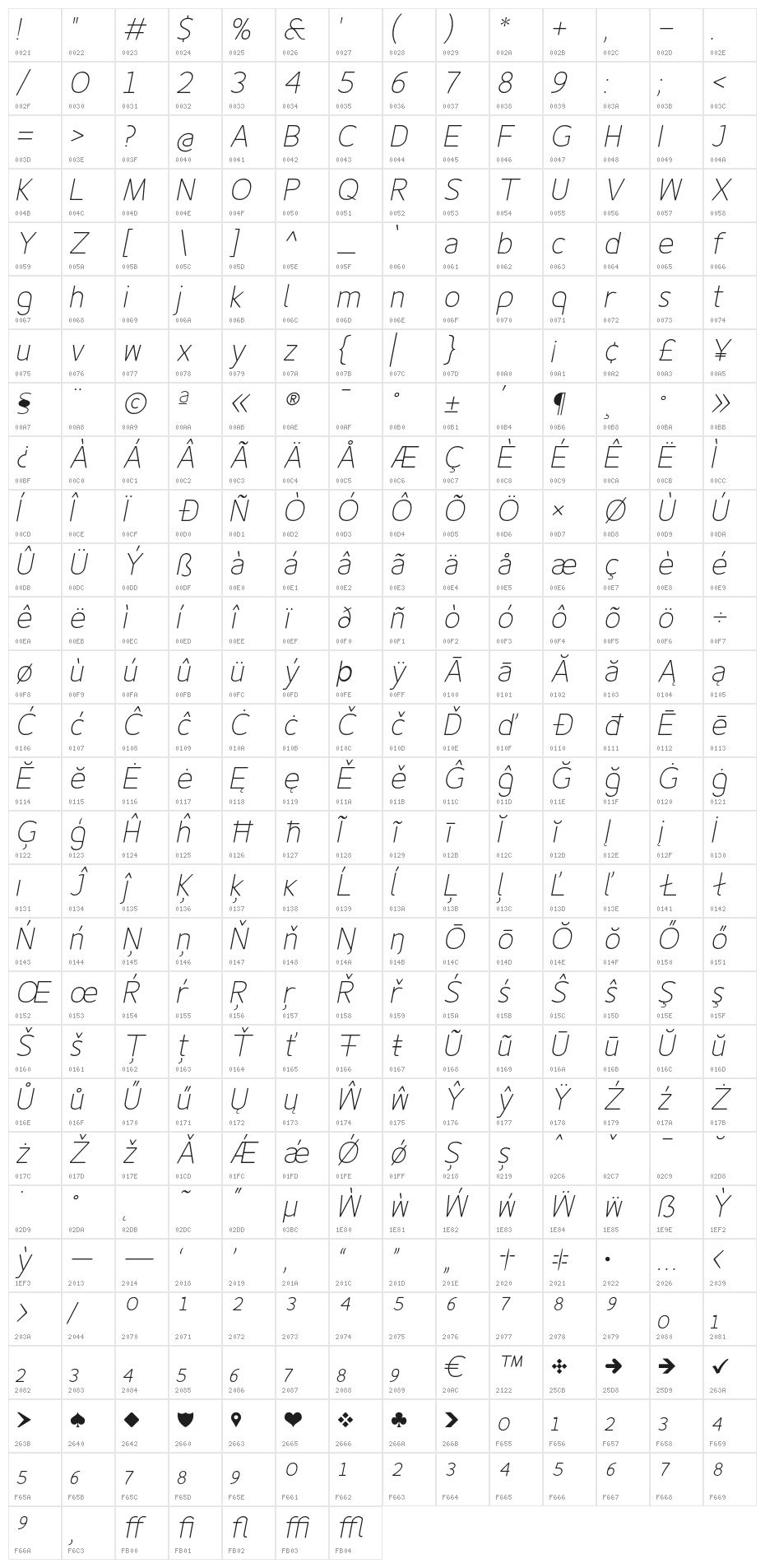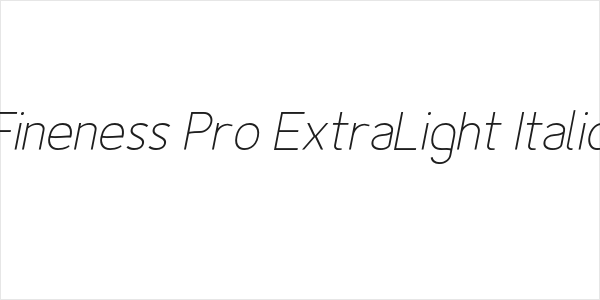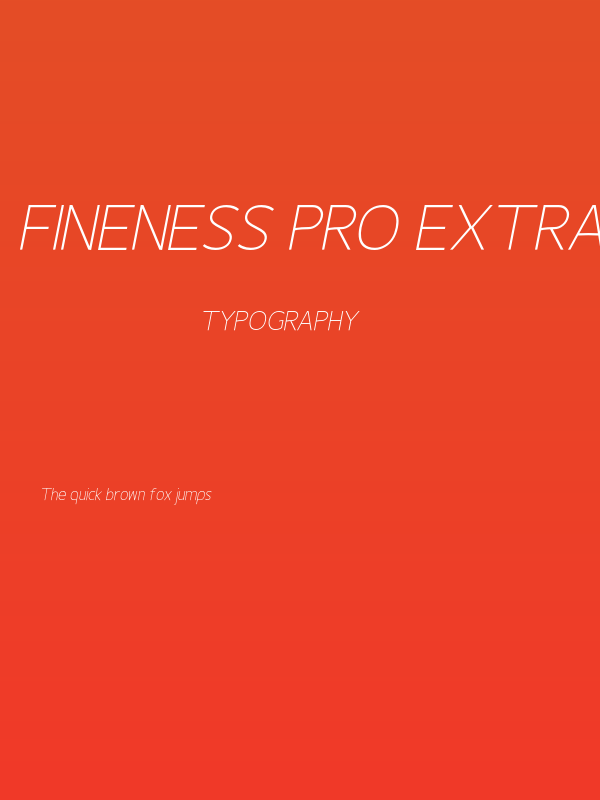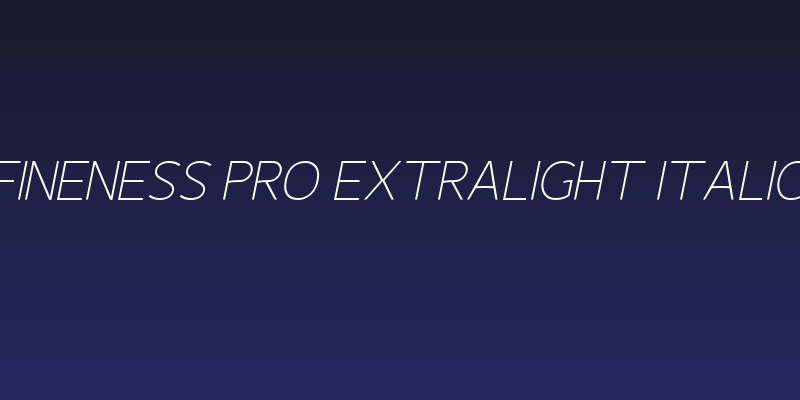
Fineness Pro ExtraLight Italic Font
Fineness Pro ExtraLight Italic Description
This font features a sleek and elegant design with an extra light weight, giving it a refined and sophisticated appearance. The italic style adds a dynamic and fluid touch, making it suitable for modern and stylish applications. The characters are well-proportioned with a slight slant, enhancing readability while maintaining a contemporary look. The font includes a full set of uppercase and lowercase letters, numerals, and a variety of special characters, ensuring versatility for various design needs. Its clean lines and minimalistic approach make it ideal for projects that require a touch of elegance and modernity.
| Proposed Projects | Ideal for fashion magazines, luxury branding, modern websites, and elegant invitations. |